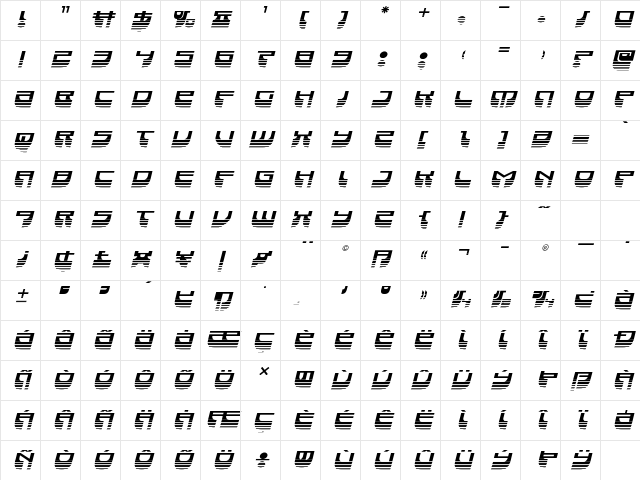
Vertical Horizon Haltone Itali is a composed and adaptable typeface that performs quietly and consistently across a wide range of design contexts. The slanted form adds forward momentum and visual energy.